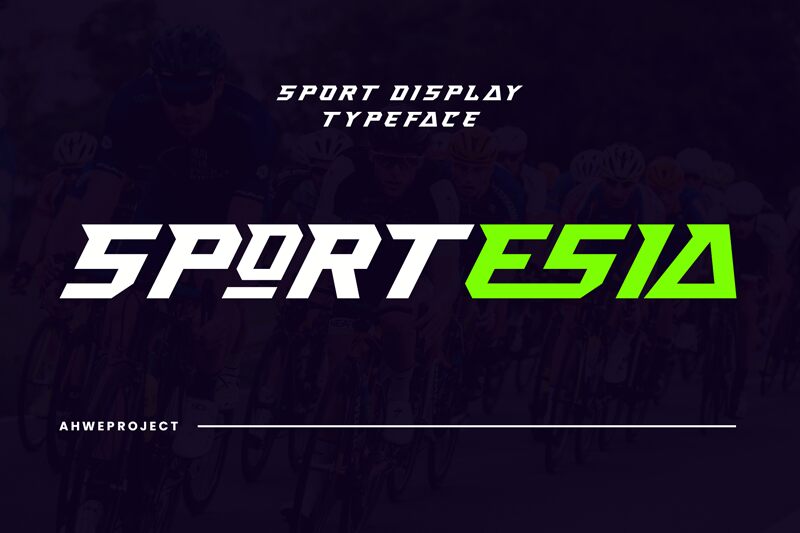
Sportesia, a captivating display font crafted by the talented Ahwe Project, embodies the essence of modern, dynamic design. Its angular, geometric letterforms exude a powerful, techno-inspired aesthetic, perfectly suited for bold, attention-grabbing applications. The font's striking visual presence evokes a sense of athletic prowess and cutting-edge style, making it a compelling choice for projects seeking to convey a sense of energy, speed, and technological innovation.
The versatility of Sportesia allows it to seamlessly integrate into a wide range of design contexts, from sports branding and packaging to digital interfaces and advertising campaigns. Its bold, distinctive character lends itself well to creating impactful headings, eye-catching logos, and dynamic typographic compositions that command attention and leave a lasting impression on the viewer.